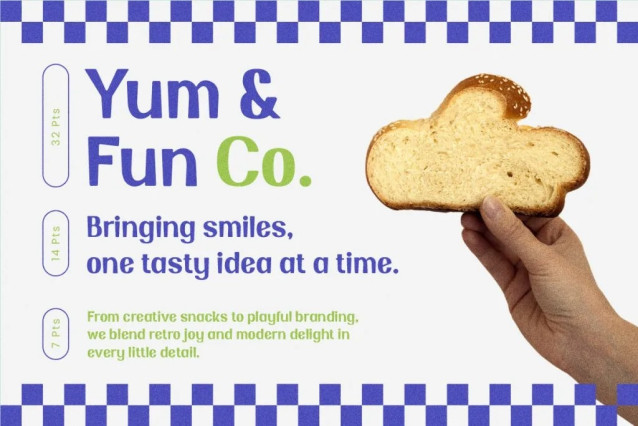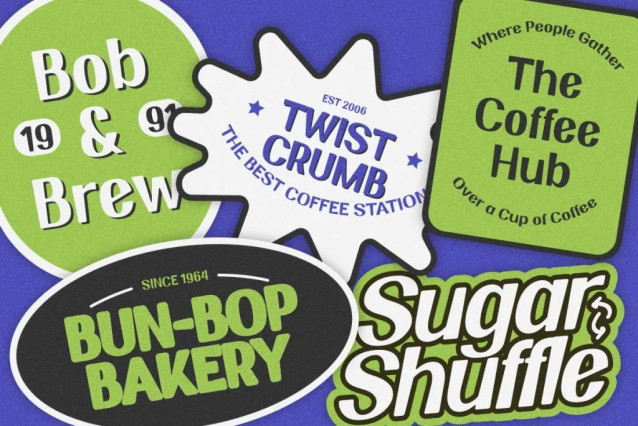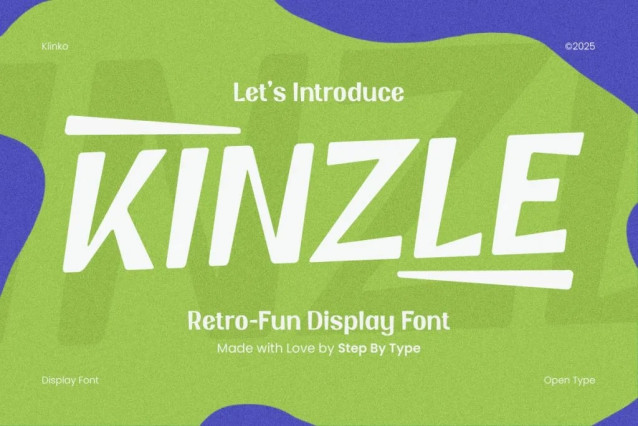
Kinzle Font
Kinzle Font is a retro fun display font that effortlessly blends bold 70s and 90s charm with a modern twist. Not only does it feature playful, chunky letterforms, but it also brings an undeniable energy to every project. This makes it the ideal choice for branding, social media content, and eye-catching posters. With Kinzle, your designs will instantly stand out with its vibrant and fun personality.